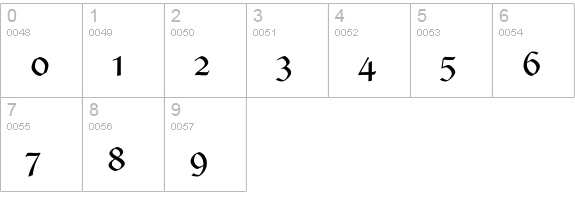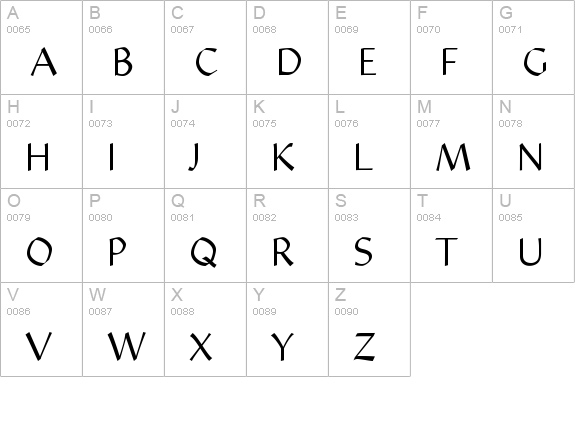
Amanda Std Font Details
Amanda Std is a versatile and elegant font that exudes sophistication and charm. With its timeless appeal and classic design, Amanda Std is perfect for a wide range of design projects, from branding to editorial design. This font features clean lines and a modern aesthetic that will elevate any project it is used in. What makes Amanda Std even more desirable is that it is available for free download at FontsMarket.com. This means that you can easily access this high-quality font without any cost, making it a valuable addition to your font library. Whether you are a designer looking for a new go-to font or a business owner seeking a polished look for your brand, Amanda Std is a fantastic choice that won't break the bank. Download Amanda Std today and experience the beauty and versatility of this stunning font.